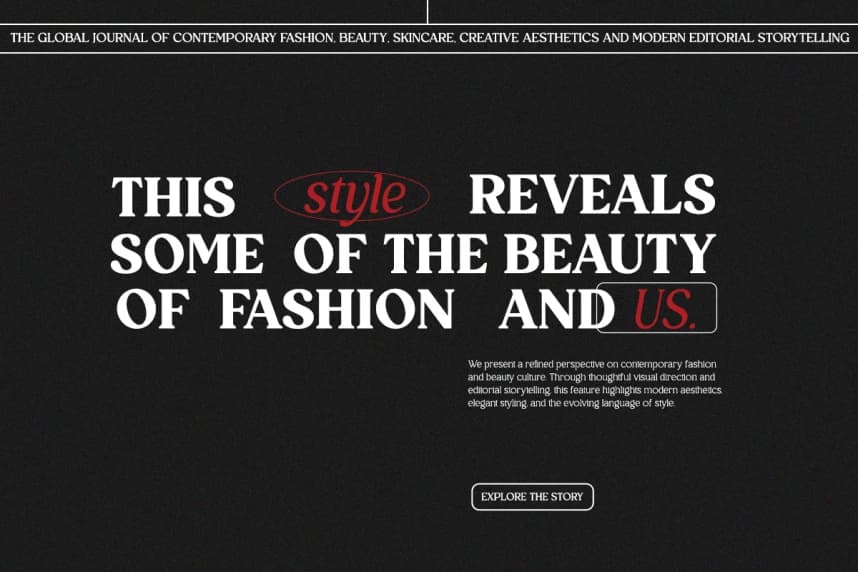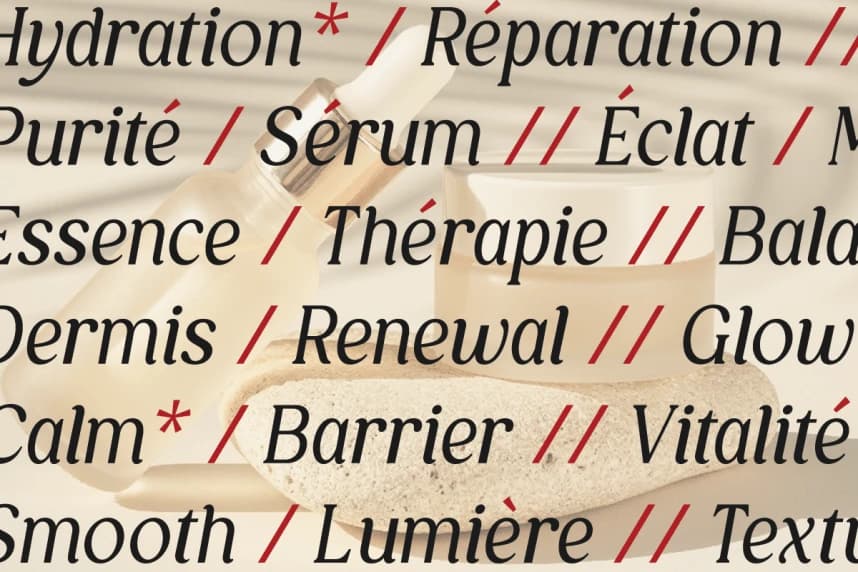
Royal Club Font
Royal Club Font is a modern elegant serif family designed to deliver a perfect balance between classic sophistication and contemporary style. With 14 styles and 7 weights, this typeface offers a complete and versatile system that brings refinement and flexibility to any design project.